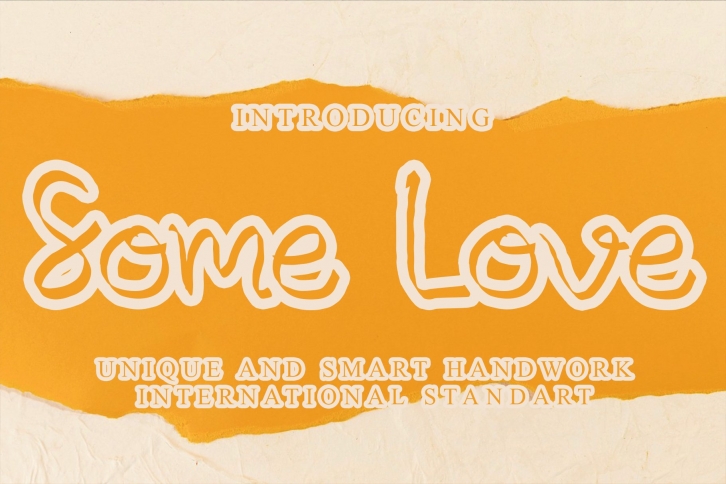
Some Love is a great font that was designed by Giart Studio. Imagine the amount of combinations you can create using this font! The archive is 8.86 MB and it was released on October 30, 2020. Some Love looks beautiful on wedding invitations, greeting cards, logos, posters, labels, t-shirt designs, logos, business cards and is perfect for use in ink or watercolor works, fashion, magazines, packaging and food menus, children's books and more!